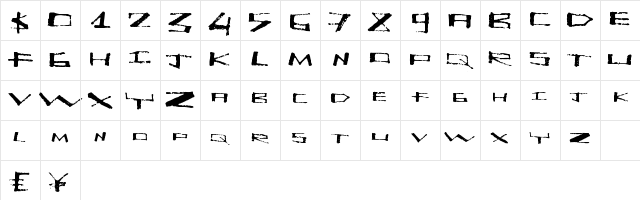
KiteHigh Regular
Design Context for KiteHigh Typeface
KiteHigh is a composed and adaptable typeface that performs quietly and consistently across a wide range of design contexts.